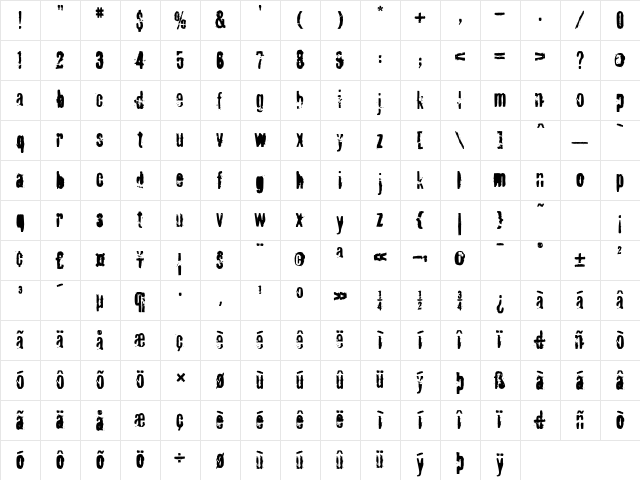
FragileICG Regular Free Font
FragileICG Regular
Design Context for FragileICG
FragileICG is a composed and adaptable typeface that performs quietly and consistently across a wide range of design contexts.